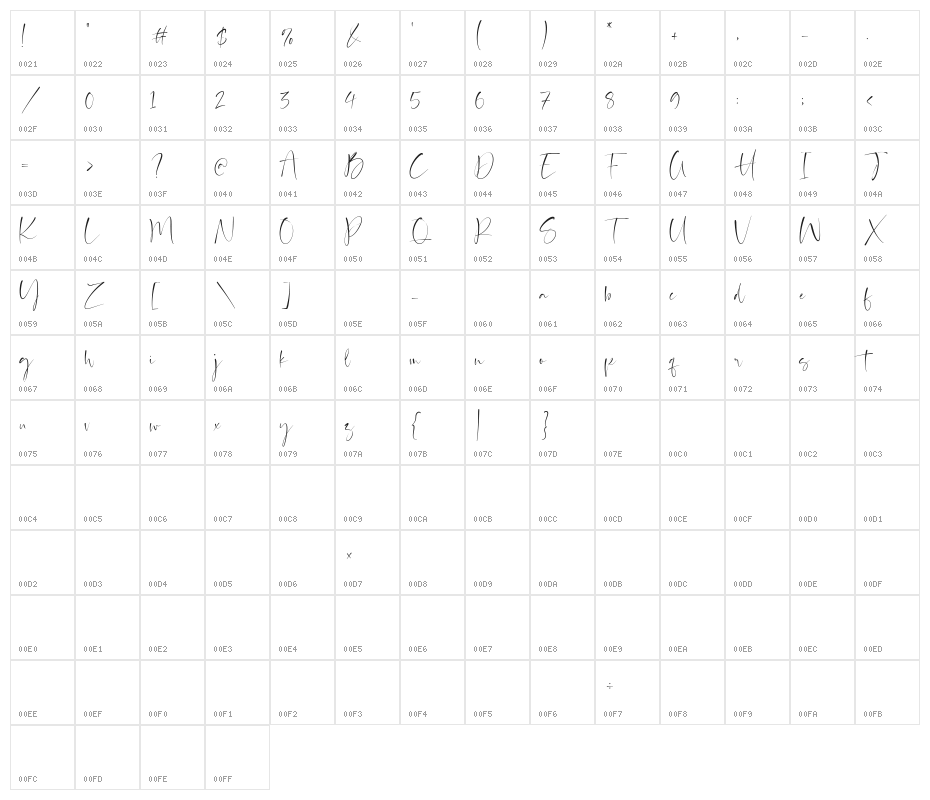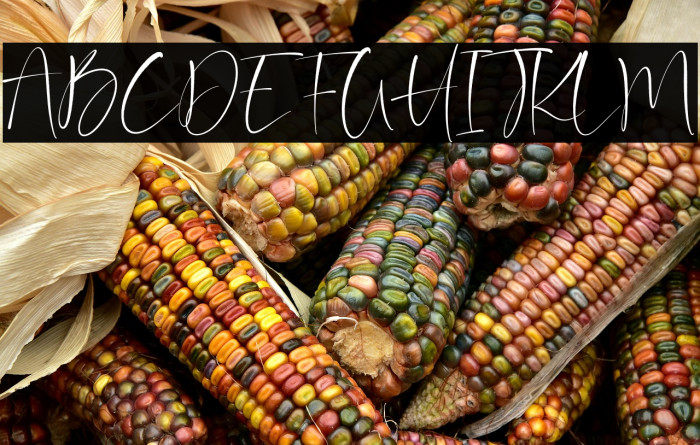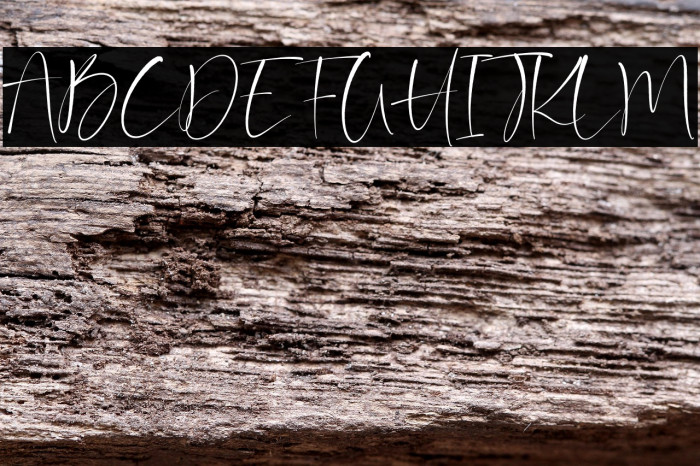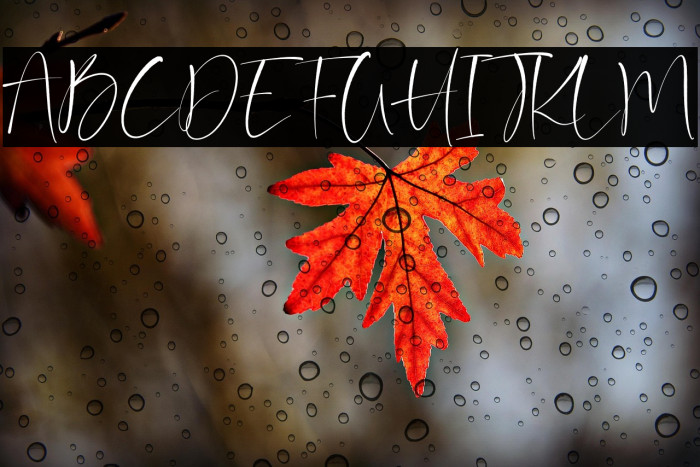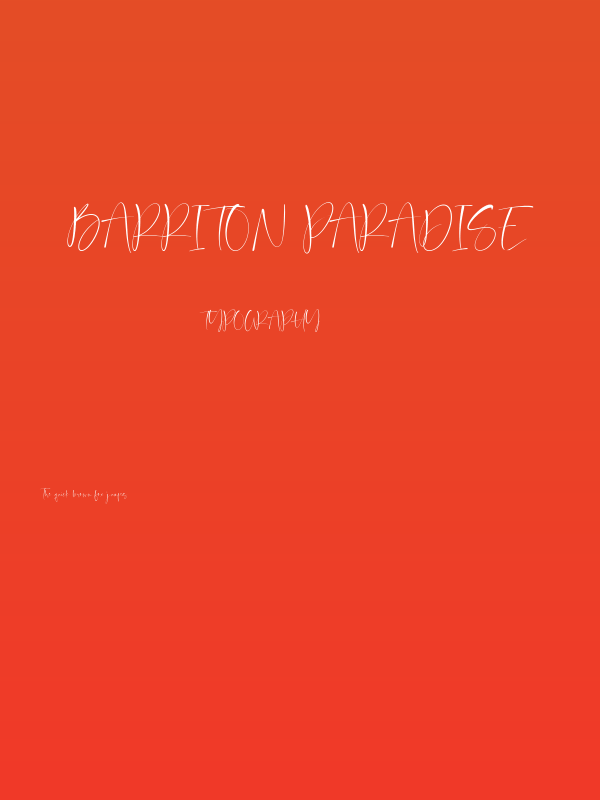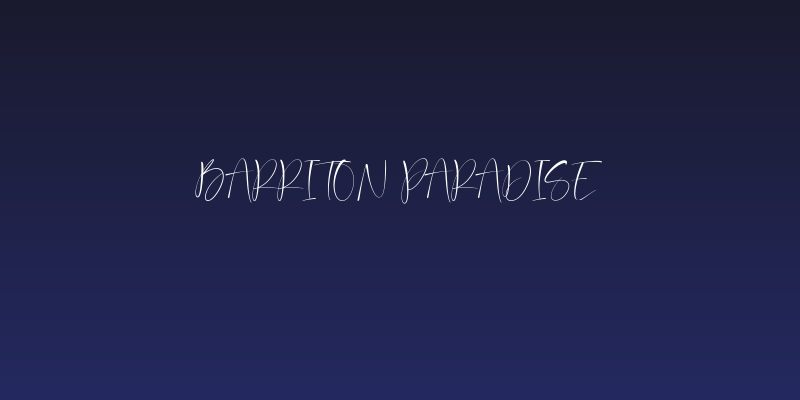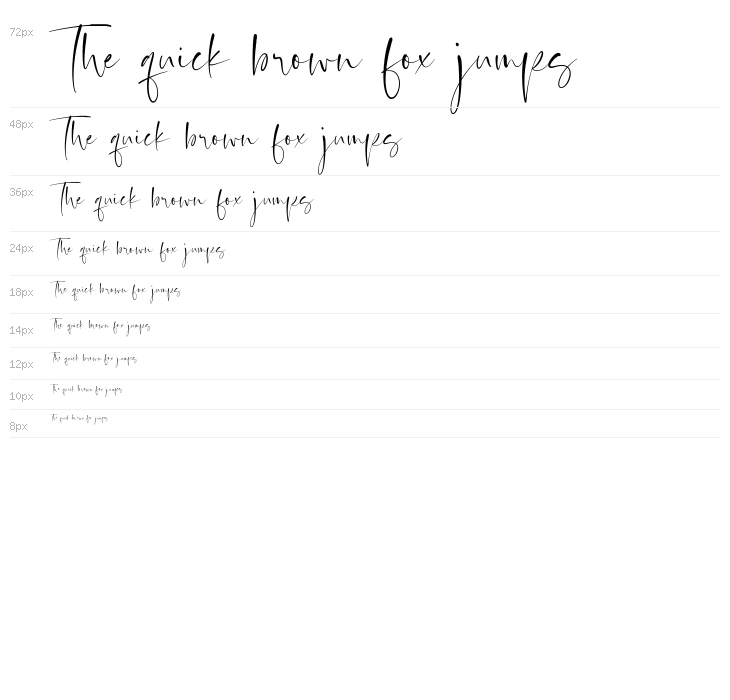
Barriton Paradise Font
Barriton Paradise Description
This font exudes a lively and artistic flair, characterized by its flowing, cursive style that mimics natural handwriting. The strokes are thin and elegant, with a slight variation in thickness that adds a dynamic and personal touch. The uppercase letters are bold and expressive, while the lowercase letters maintain a consistent fluidity. The numbers and special characters are crafted with the same attention to detail, ensuring a cohesive look across all elements. This font is perfect for projects that require a personal, handwritten feel.
| Proposed Projects | Ideal for wedding invitations, personal branding, greeting cards, and artistic projects. |